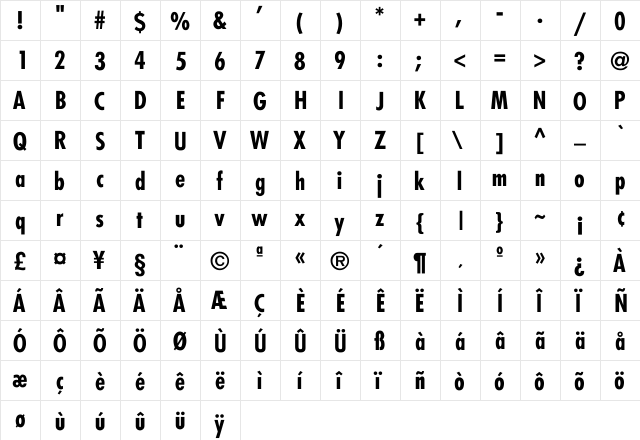
Fairmont-Condensed-Bold Regular
Design Context for Fairmont-Condensed-Bold Typeface
Fairmont-Condensed-Bold offers clean, dependable letterforms without strong stylistic allegiance, making it a practical choice for designers who need flexibility. Its bold stroke weight gives it real presence on the page. Its narrow stance lets it pack a punch even in space-constrained designs.